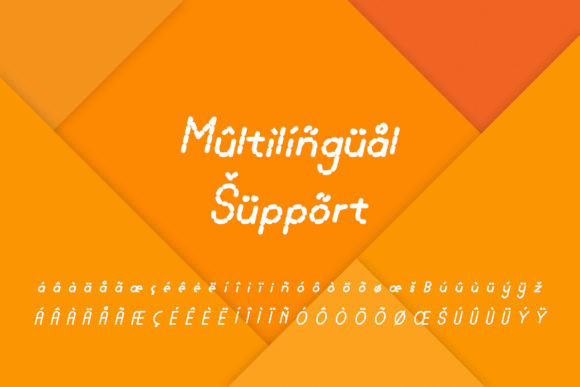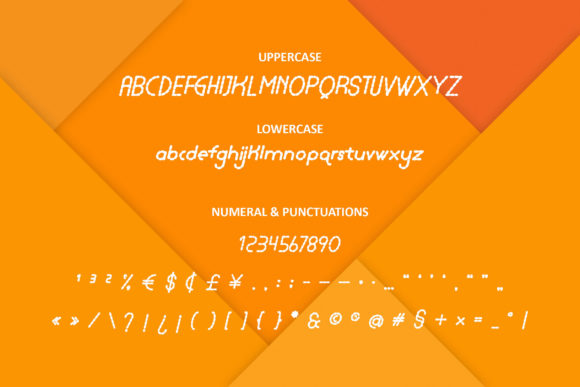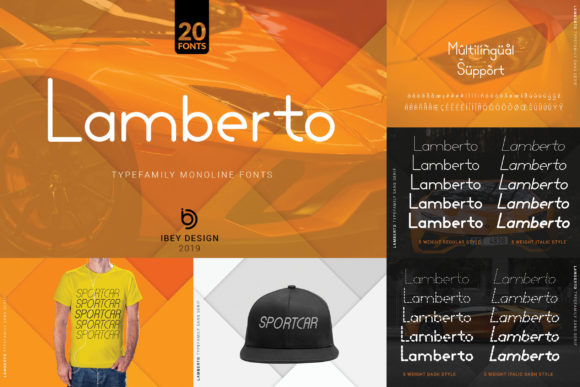
Introduction to Lamberto Extra Bold Italic Dash Font
Lamberto Extra Bold Italic Dash is a monoline display font with an incredibly bold and contemporary approach to classic lettering.
Key Features of Lamberto Extra Bold Italic Dash Font
Why Choose Lamberto Extra Bold Italic Dash Font?